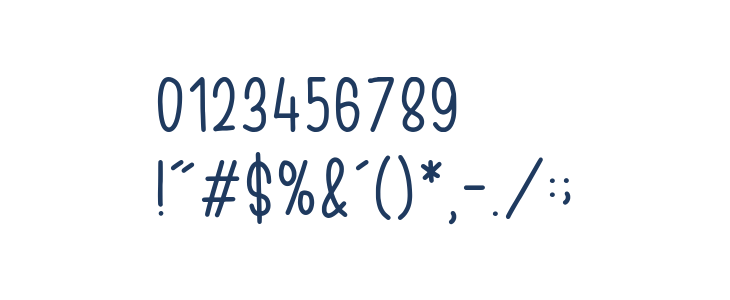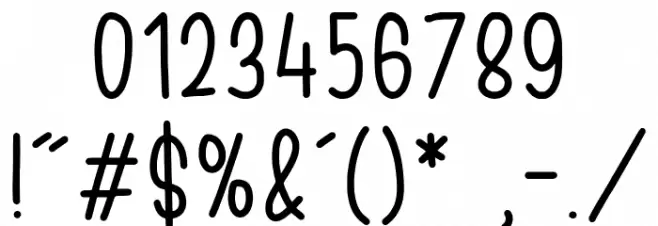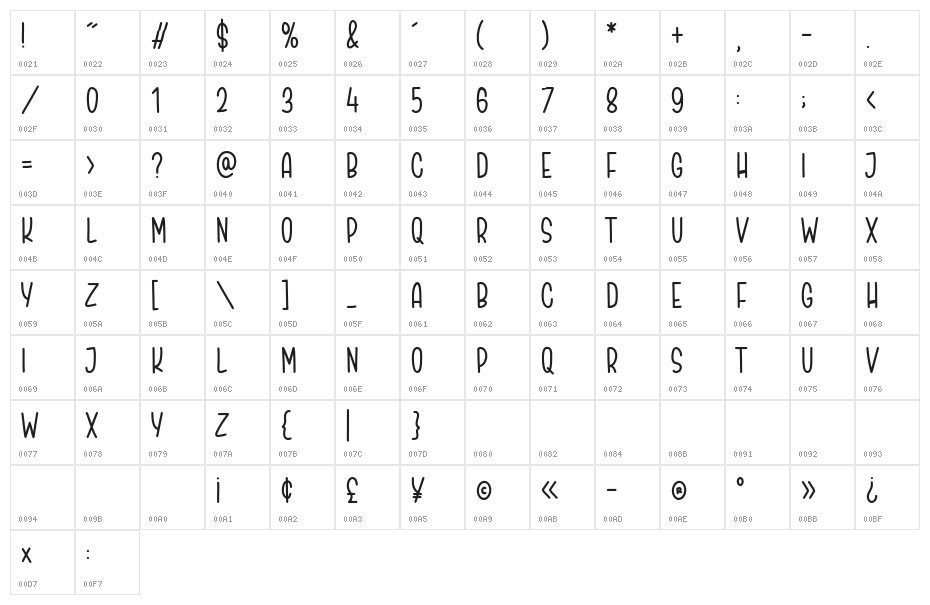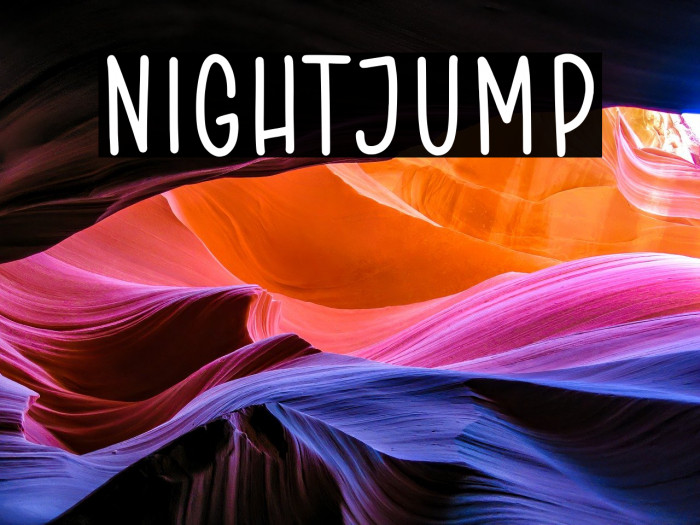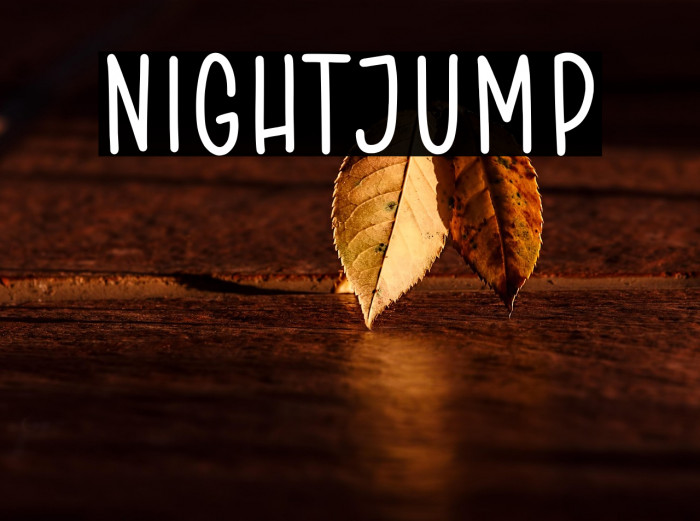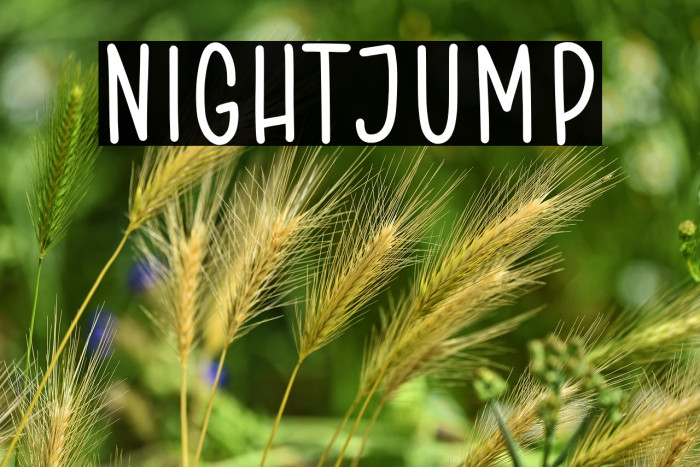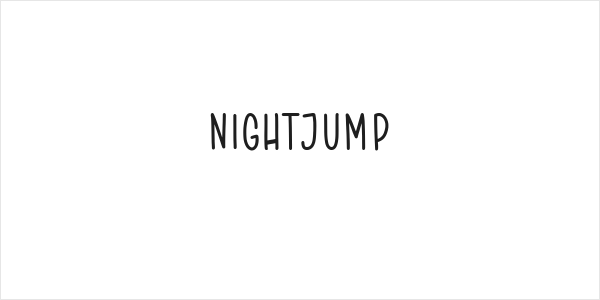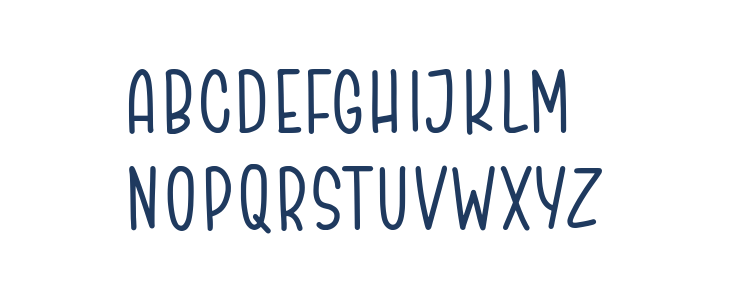
NIGHTJUMP Font
NIGHTJUMP Description
This playful and modern font features a handwritten style with smooth, rounded edges and a casual, friendly appearance. The characters are slightly elongated, giving them a unique and whimsical look. The uppercase and lowercase letters maintain a consistent flow, while the numerals and special characters complement the overall design. The font's informal style makes it suitable for projects that aim to convey warmth and approachability.
A playful, handwritten font with smooth, rounded edges and a whimsical style from Uncategorized fonts.
- Proposed Projects: Ideal for children's books, greeting cards, playful branding, and casual invitations.
- Overall Style: Playful, Modern
- Use Case: Headlines, Logos, Casual Text